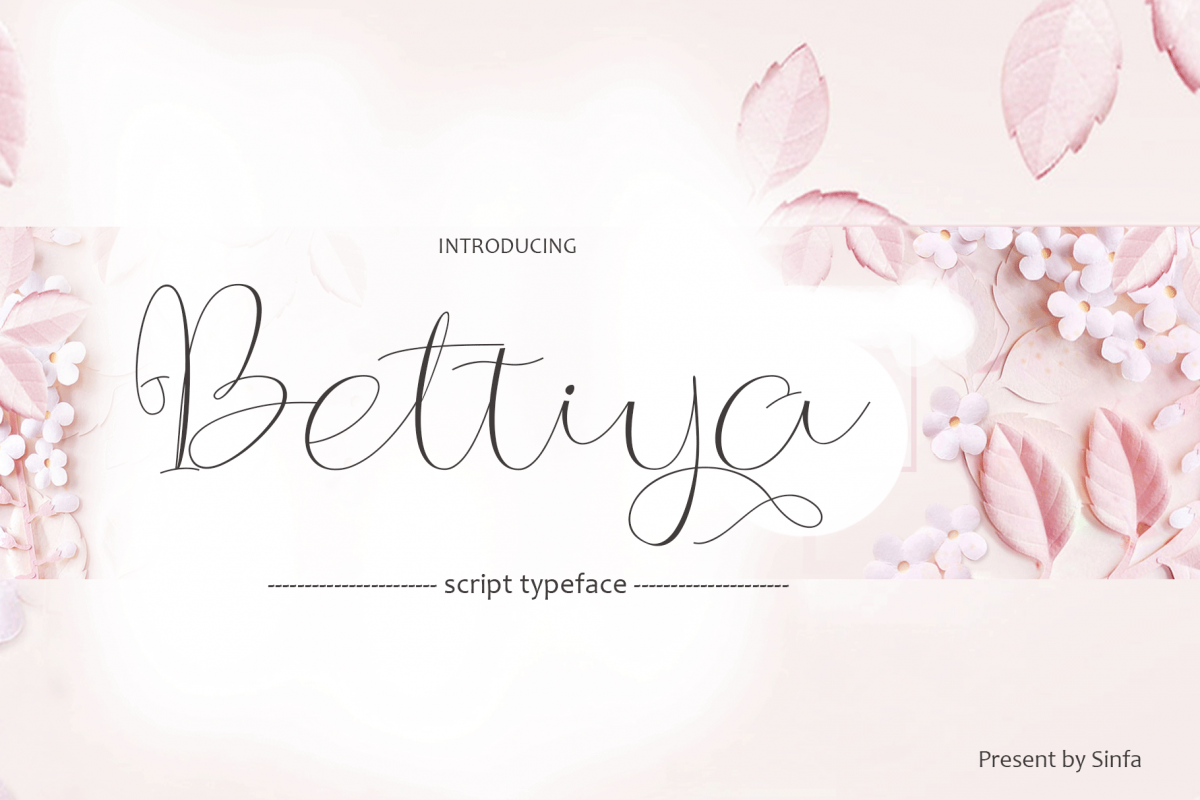
Bettiya
Bettiya is a new modern script font with an irregular basis. Trendy and feminine style. Bettiya fonts look clean and beautiful in various design needs, like in Invitations, thank you cards, quotes, greeting cards, T-shirt designs, product labels, brand boards, logos, business cards and more ,. Perfect for use in ink or watercolors. Includes several alternative letters and multi-language support. include: Bettiya OTF Bettiya OTF,Thank, sinfa.co